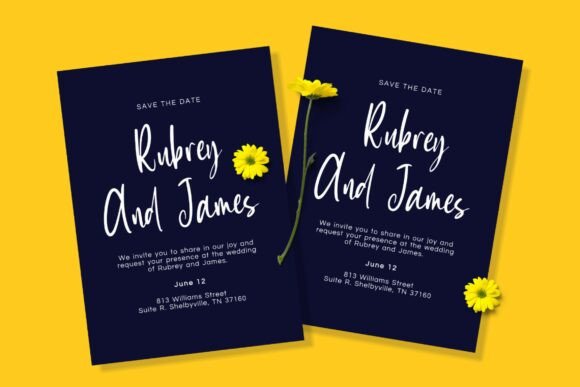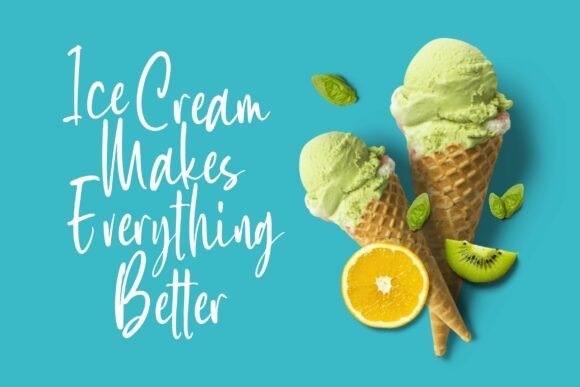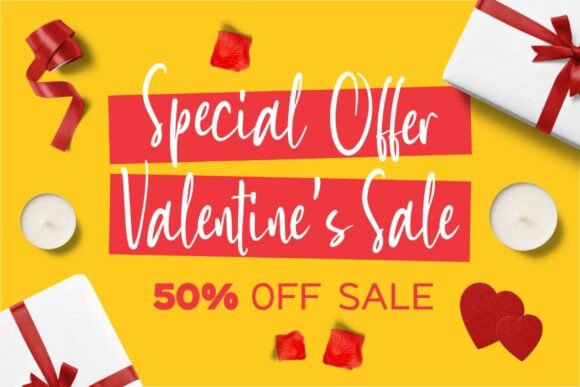
Introduction to Helguer Font Font
Helguer is a fresh and bouncy casual script font that exudes as a relaxed, connected script with light pressure contrast, clean curves, rounded terminals, and a confident rightward slant.
The letterforms in Helguer are designed to be fluid and expressive Perfect for designing branding for a chic café, creating eye-catching social media quotes, designing wedding invitations, or crafting beautiful packaging.